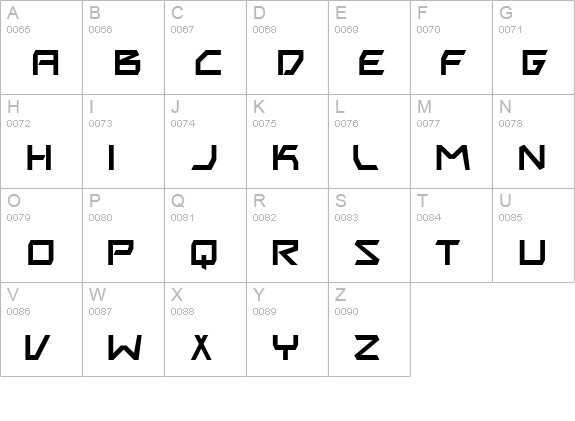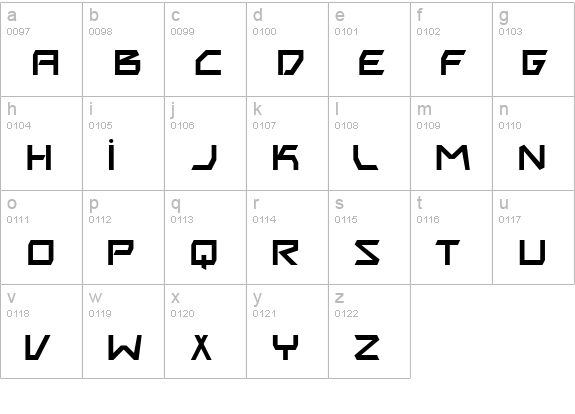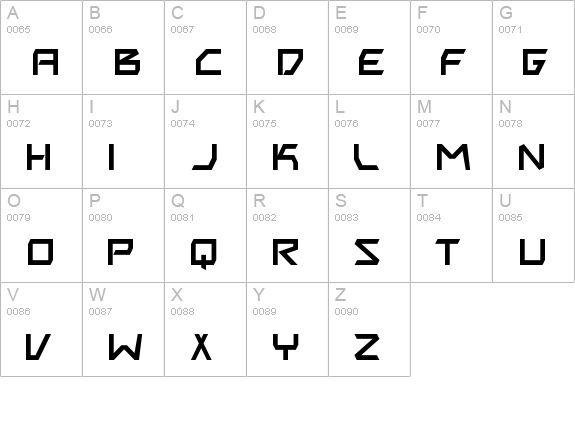
TR Biting My Nails Font Details
TR Biting My Nails font is a bold and edgy typeface that exudes a sense of modernity and creativity. With its sharp angles and unique design, this font is perfect for making a statement in any project. Whether you're working on a poster, logo, or website design, TR Biting My Nails font will add a touch of sophistication and style. The best part? TR Biting My Nails font is available for free download at FontsMarket.com. This means you can easily access this premium font without any cost, making it a great resource for designers and creatives looking to elevate their work. Don't miss out on the opportunity to add TR Biting My Nails font to your font collection today!